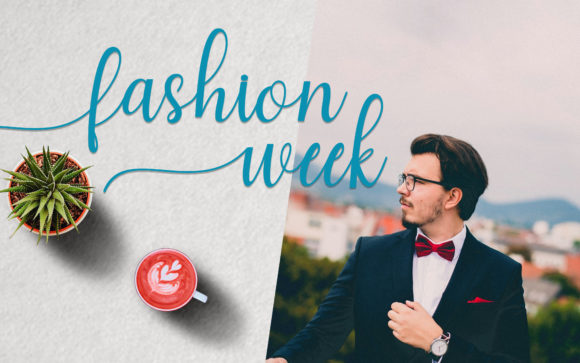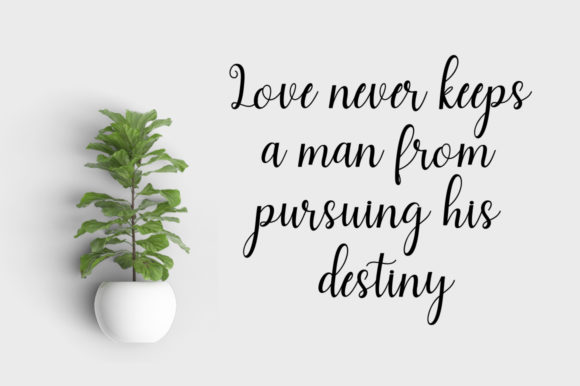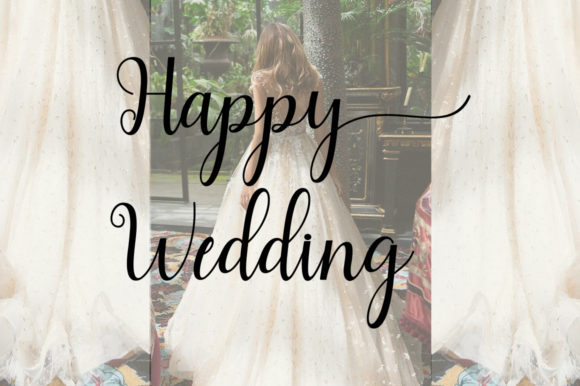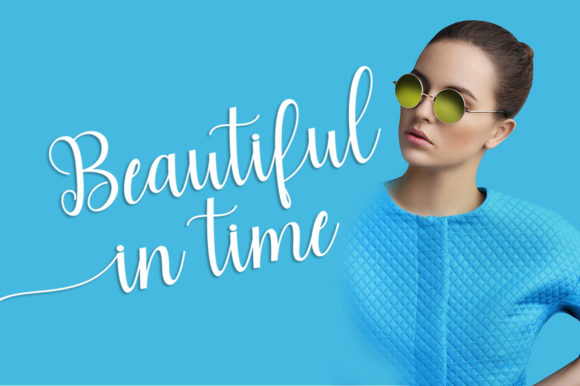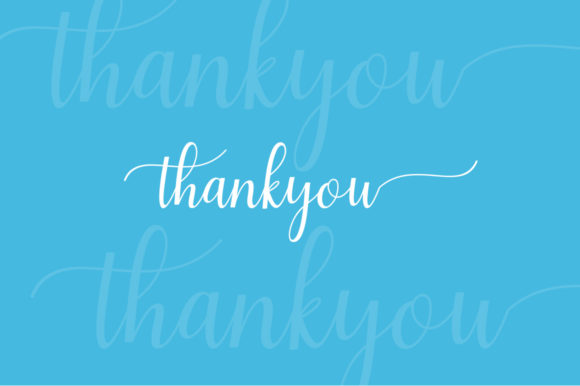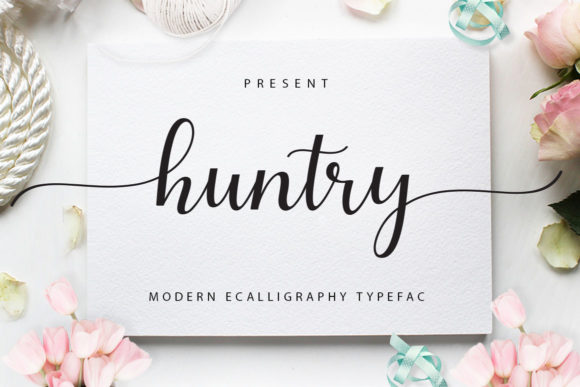
HomePersonal Use FreeHuntry Personal Use Free Huntry FacebookTwitterPinterestWhatsApp 1 of 6 About Huntry Font Huntry is a stunning and bold handwritten font with a romantic twist. It will turn any design project into a stand out! DOWNLOAD NOW People also explored The Ray Font Kirung Font Porterhouse Font Peanut Butter Font Godfrey Font Greeting Card Mock Up A6 A5 Something Real Font Emotion Doodle Font Tranquillity Font 123 0 TagsHuntryHuntry Font Previous articleThe MoshbustherNext articleA New Nattyla LEAVE A REPLY Cancel reply Comment: Please enter your comment! Name:* Please enter your name here Email:* You have entered an incorrect email address! Please enter your email address here Website: Save my name, email, and website in this browser for the next time I comment. Personal Use Free Baby Mollusca Personal Use Free Read more about this font Bolt Electric Personal Use Free Read more about this font Manbow Personal Use Free Read more about this font Fuixg Personal Use Free Read more about this font BLOG Free vs Paid Fonts: Why Investing in Premium Fonts Is Worth It Free vs Paid Fonts: Why Premium Fonts Are Worth It in 2025 The debate of free vs paid fonts continues in the design world. While... Best Fonts for YouTube Videos: Make Your Thumbnails Stand Out Where to Buy American Fonts Online in 2024 Top 7 Google Fonts Alternatives for Faster and Privacy-Friendly Web Design (2025)